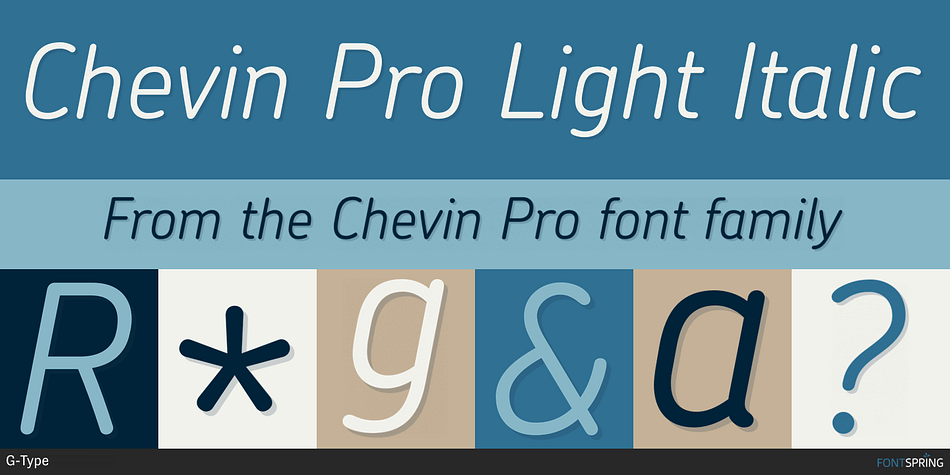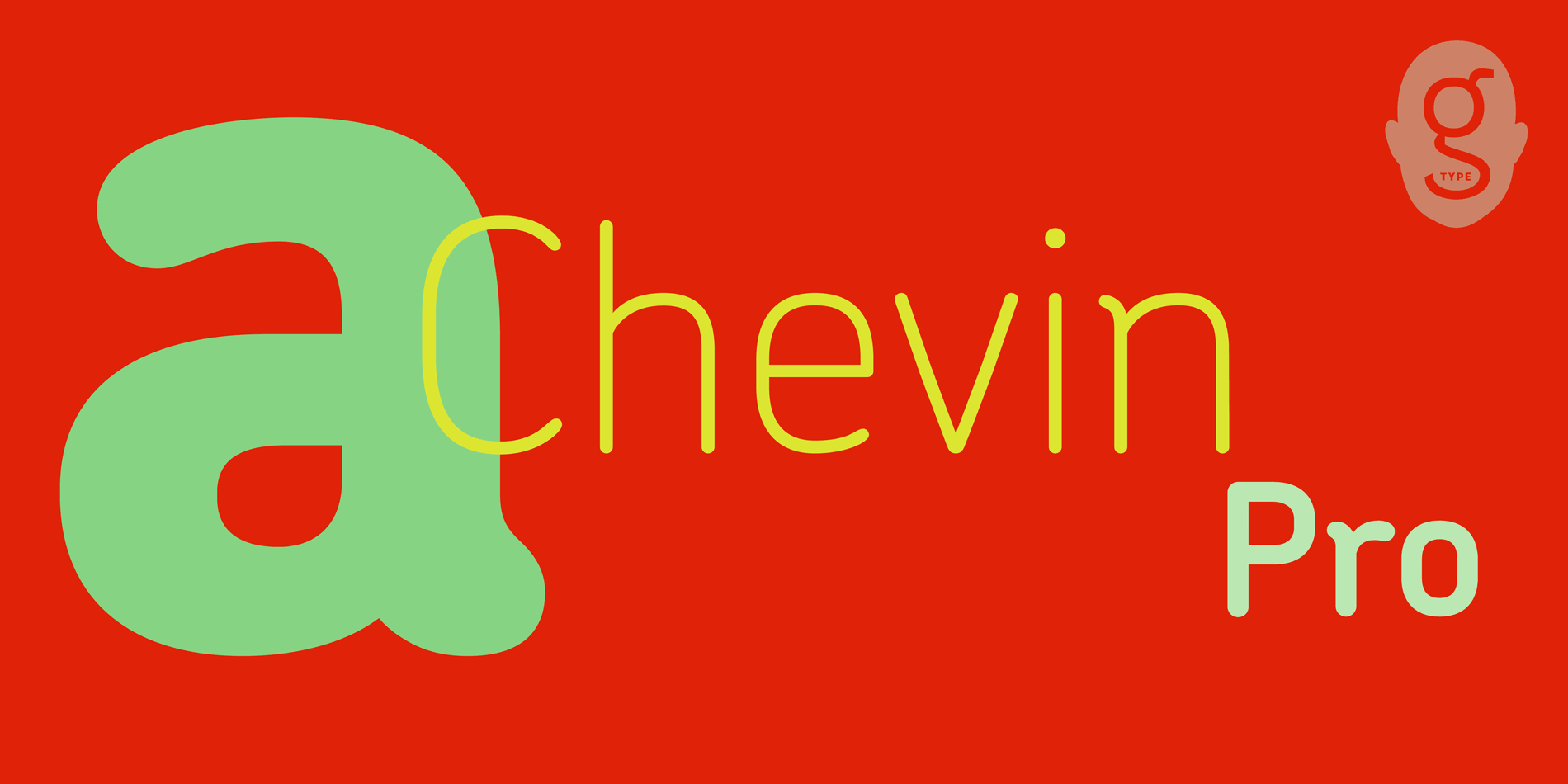
Chevin Pro Light Italic
Designed by Nick Cooke, Chevin Pro is a sans serif font family. This typeface has twelve styles and was published by G-Type.
Chevin Pro is a modern, rounded type family in 6 weights which was designed with functionality and legibility in mind.
With its open counters and slightly condensed style Chevin can be used for text and is particularly suited to signage.
Erik Spiekermann is a fan, noting that Chevin “is charming without being cute, and very legible even in small sizes because of its restrained shapes and simple construction.”
Chevin is named after the hill which overlooks Otley in West Yorkshire. Since 2007 the type family has been highly prominent in the UK as Royal Mail’s corporate font and the typeface that adorns every Post Office in the country.
Chevin is available in two versions. The Chevin Pro fonts include additional Greek and Cyrillic layouts as well as more OpenType features than the more basic Chevin Std family.